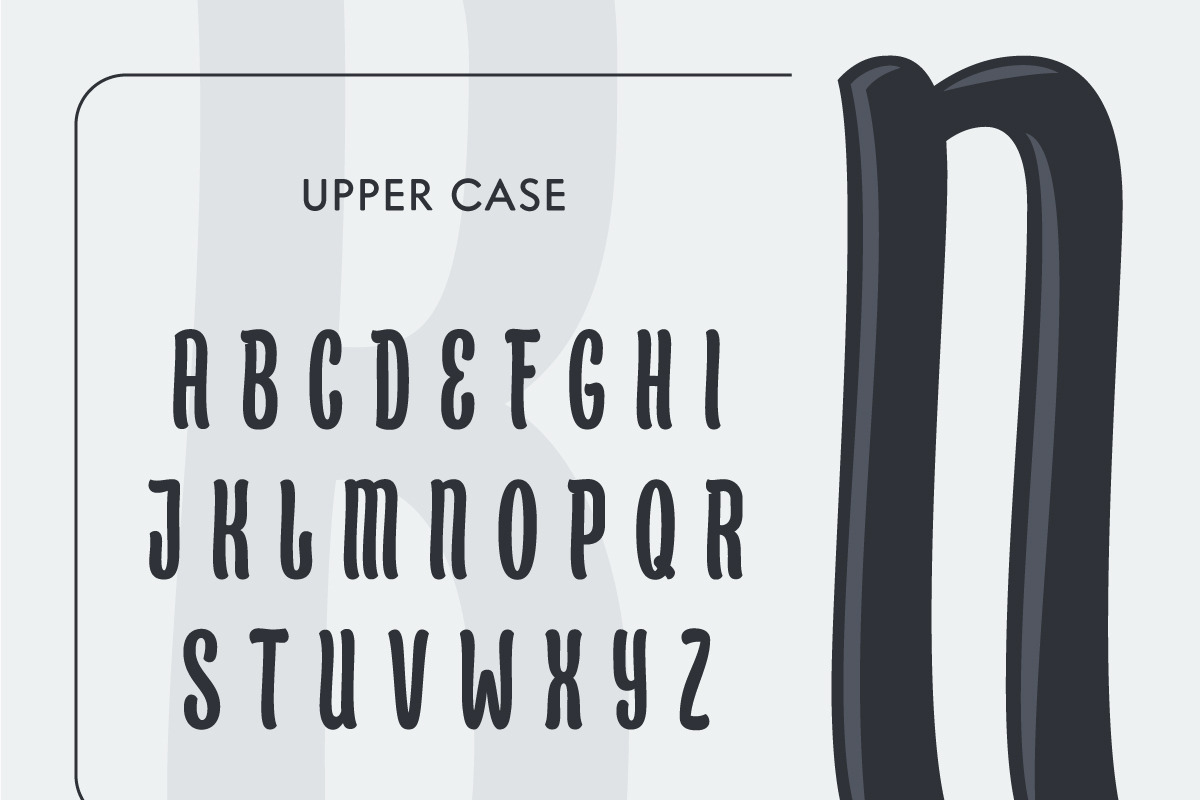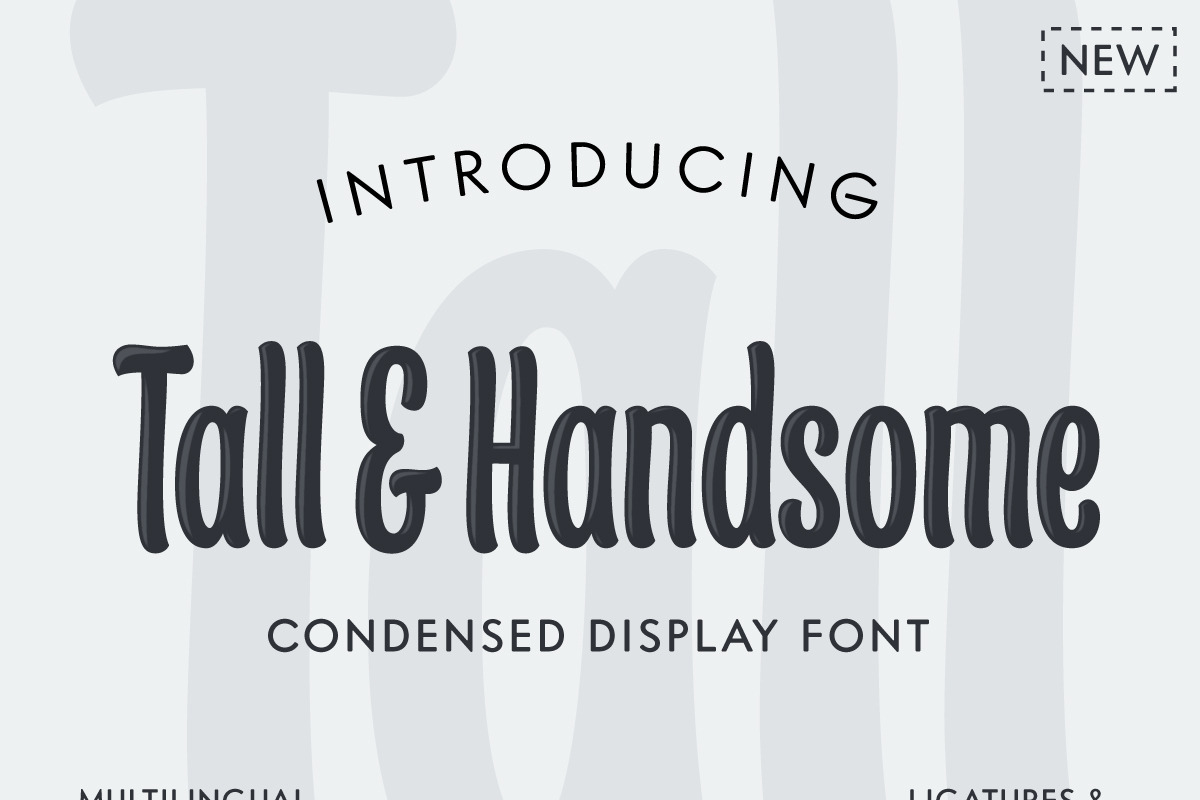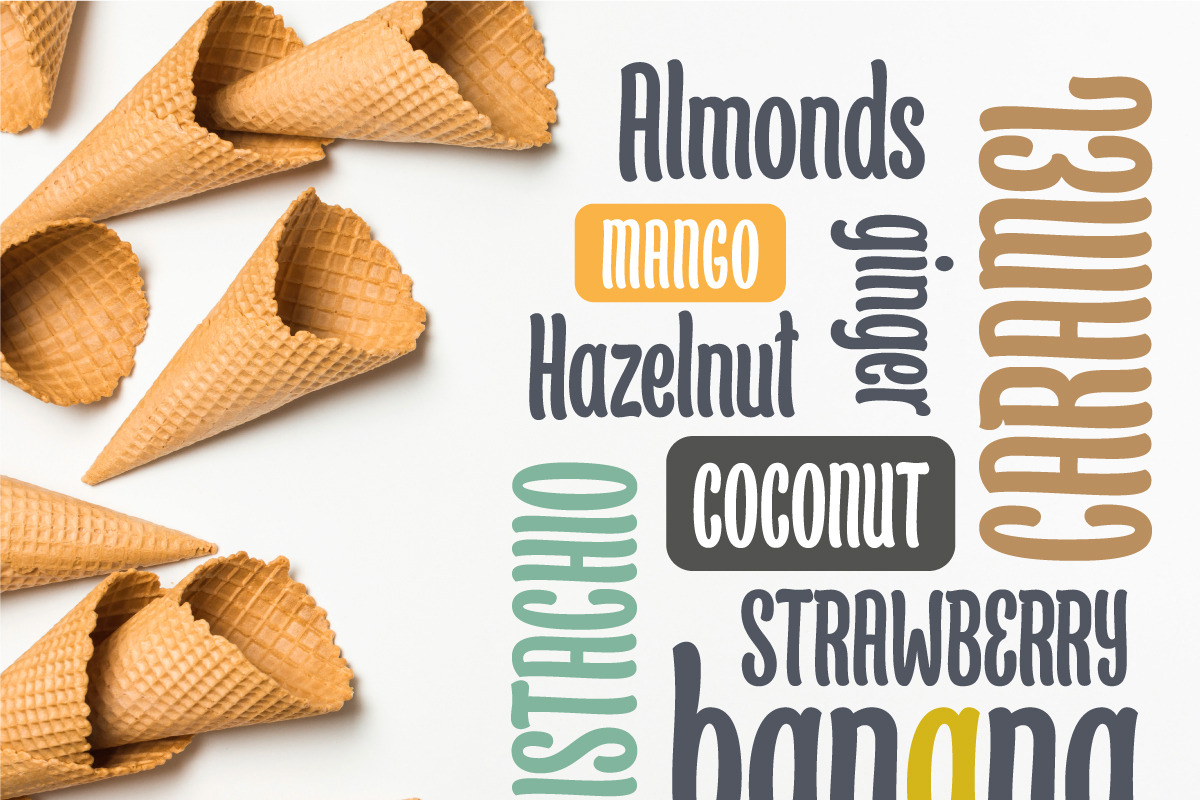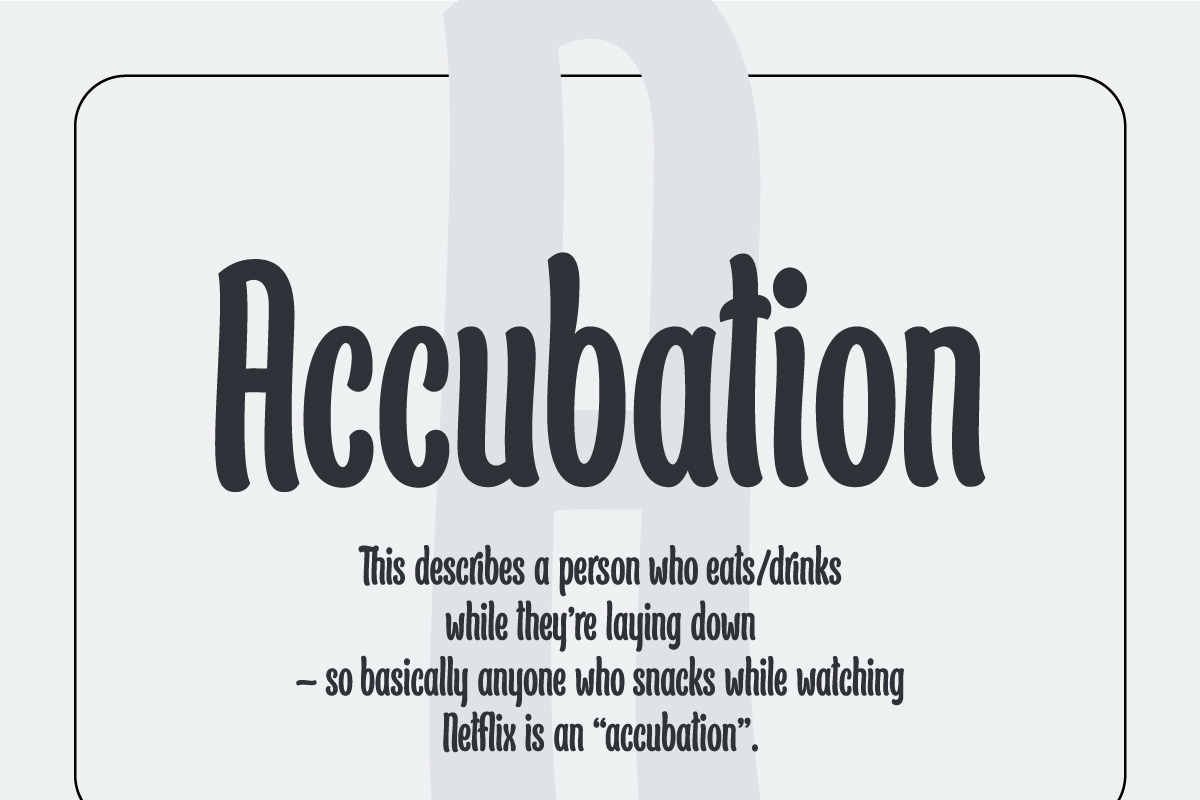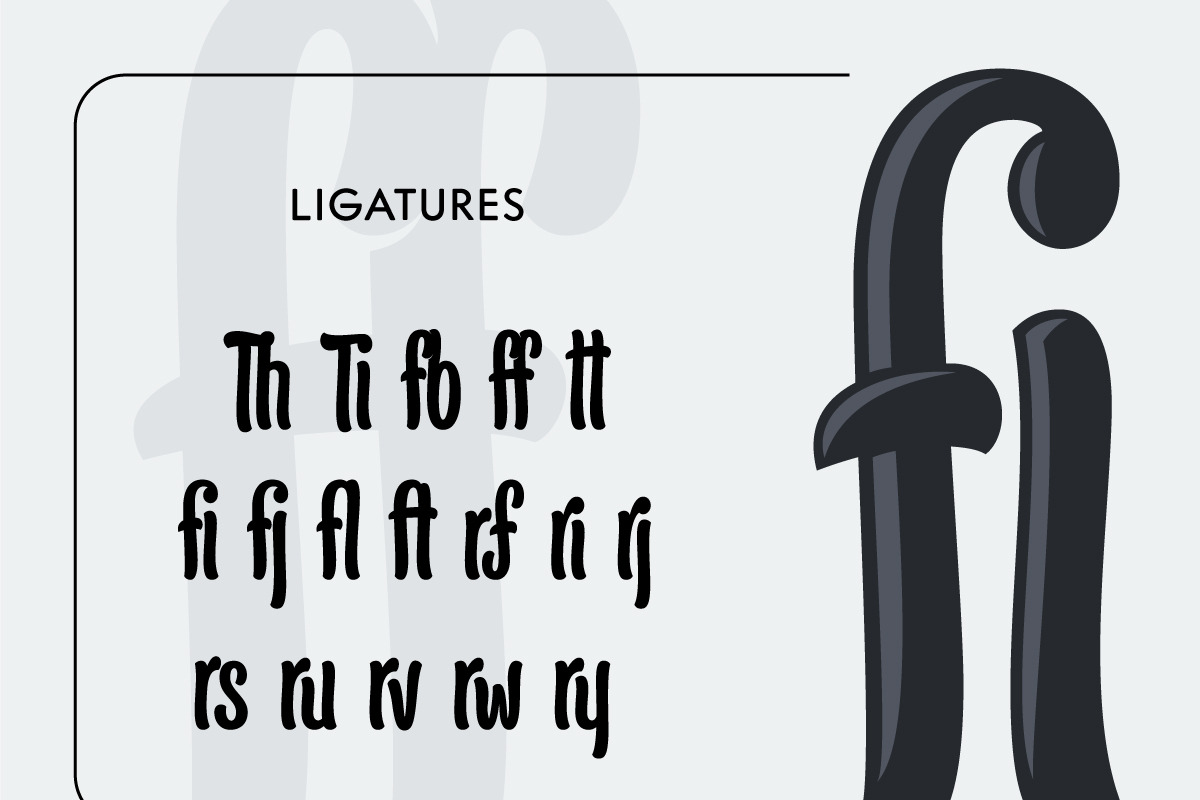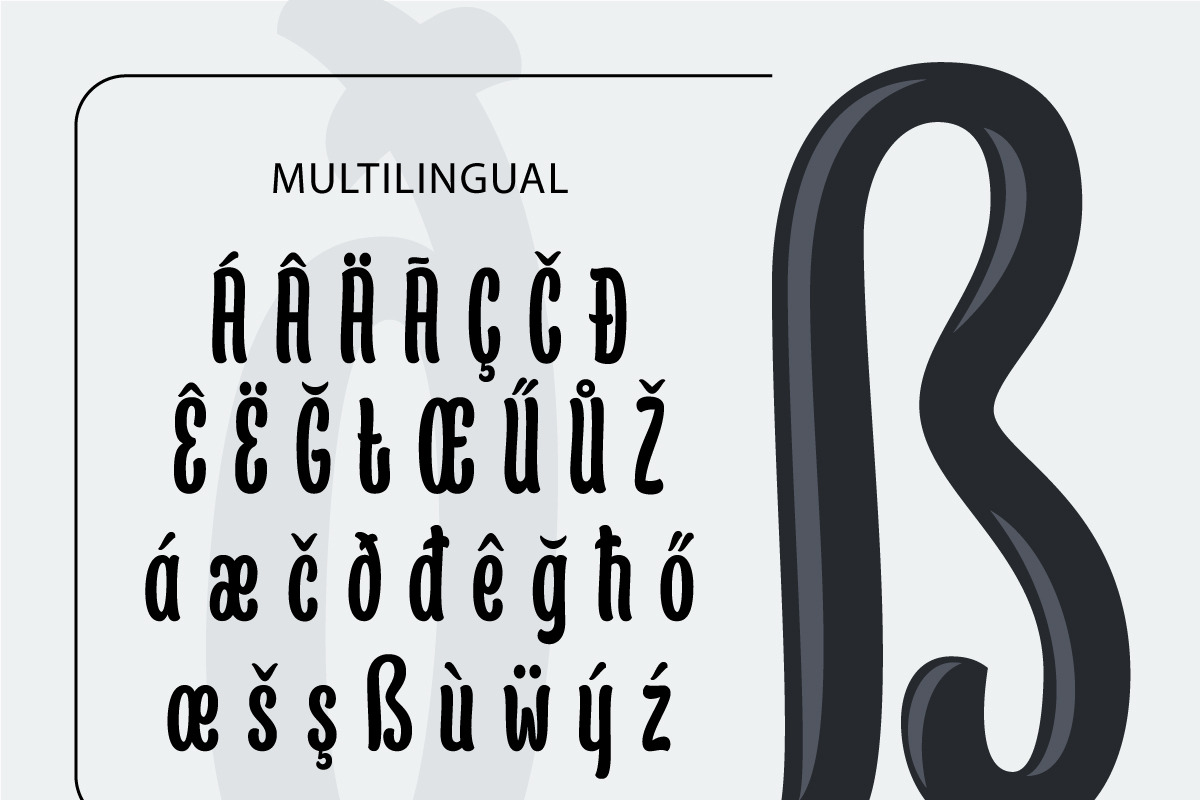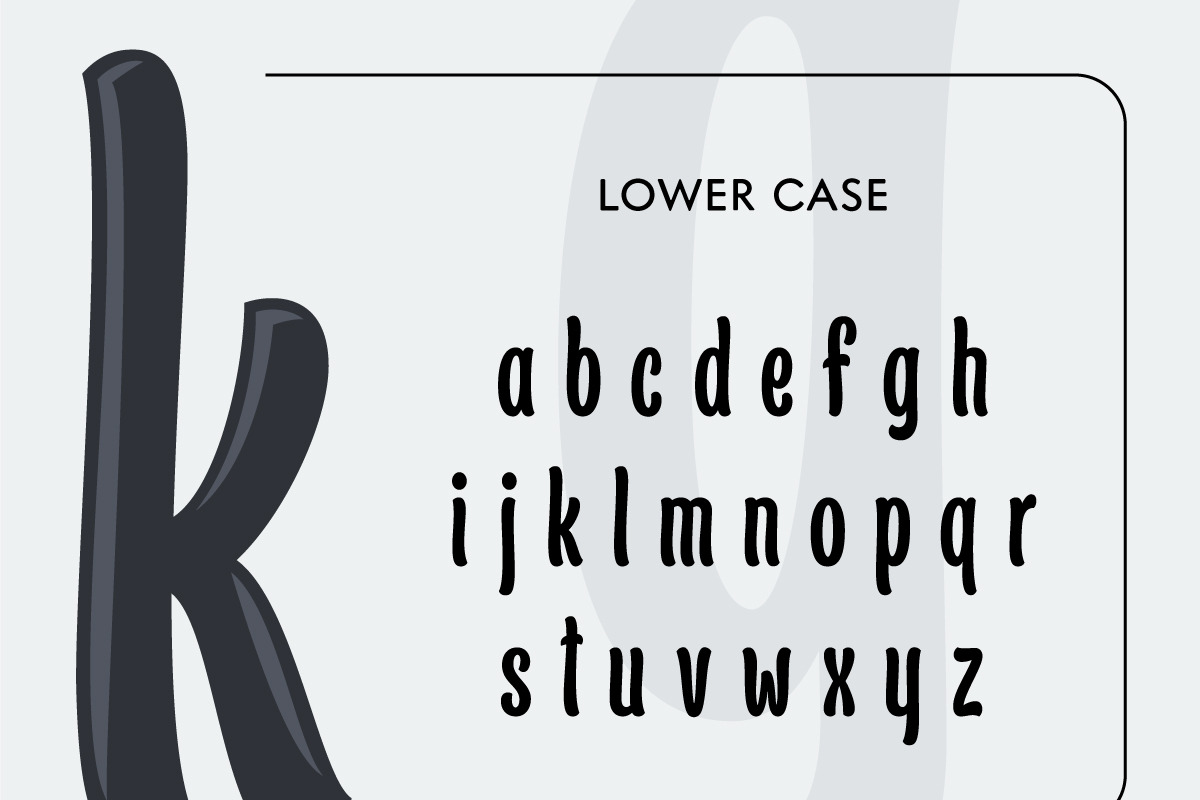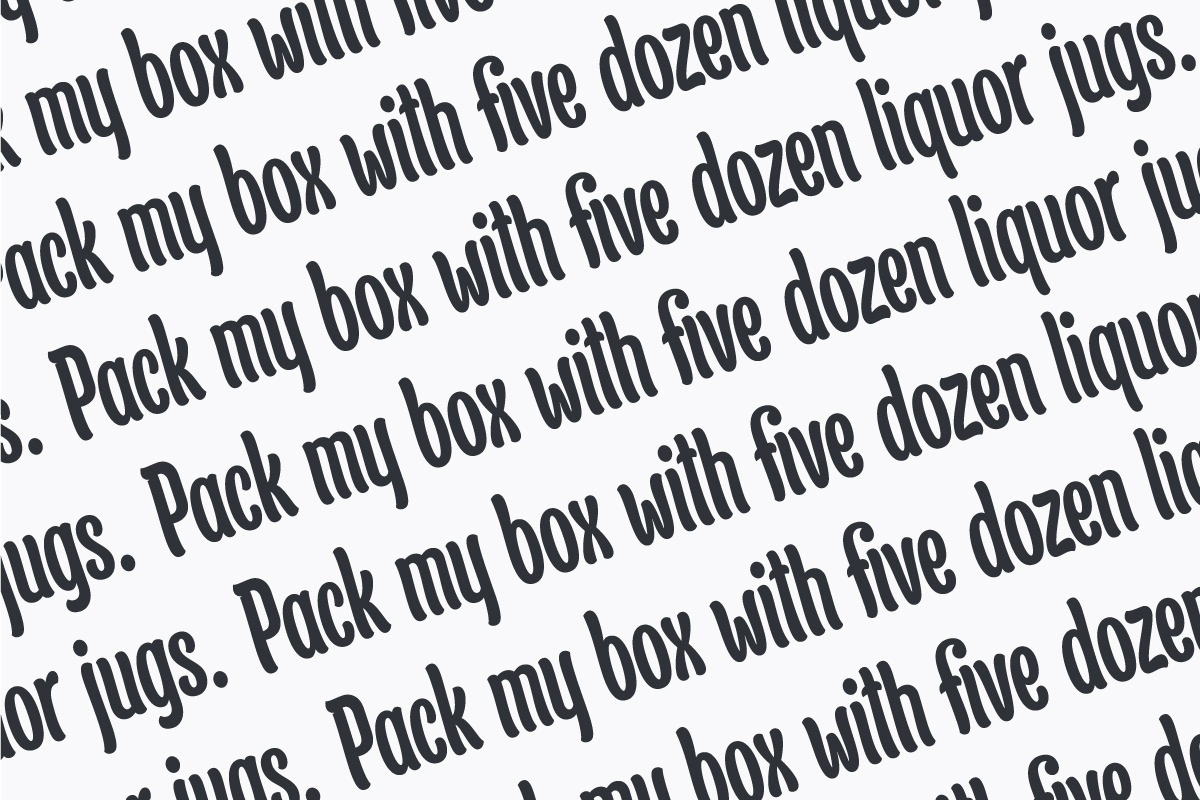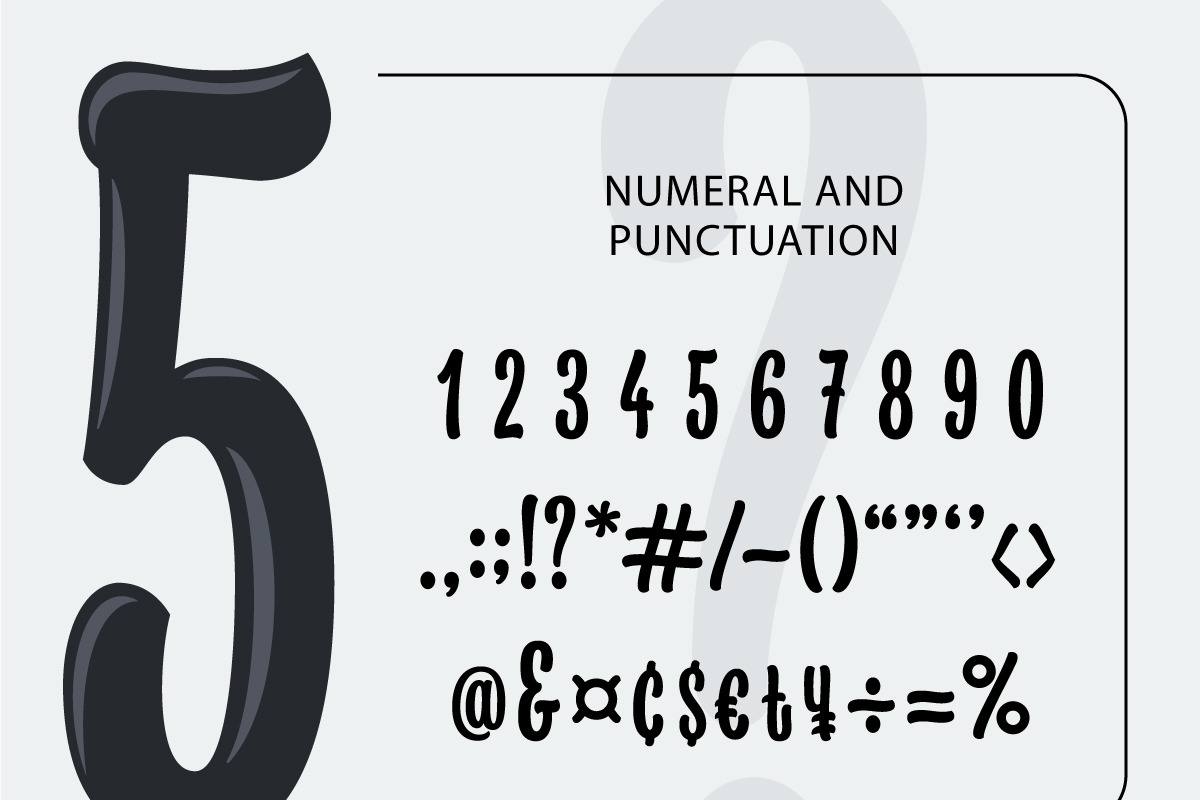
Tall & Handsome - Condensed Display
Tall&Handsome is a stylish and condensed display font. The organic narrow-shaped letters make this font perfect for those troubling long words and large volume sentences. It's casual and relaxed vibe is suitable for great variety of projects.